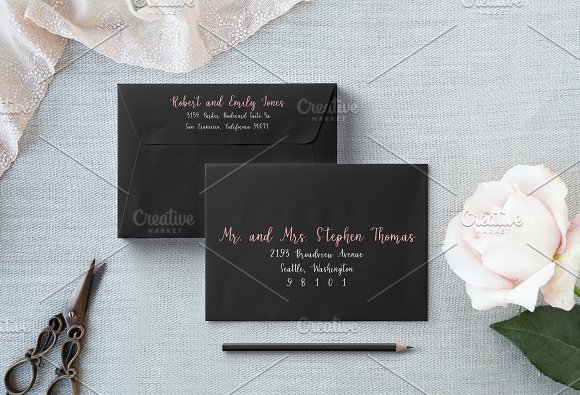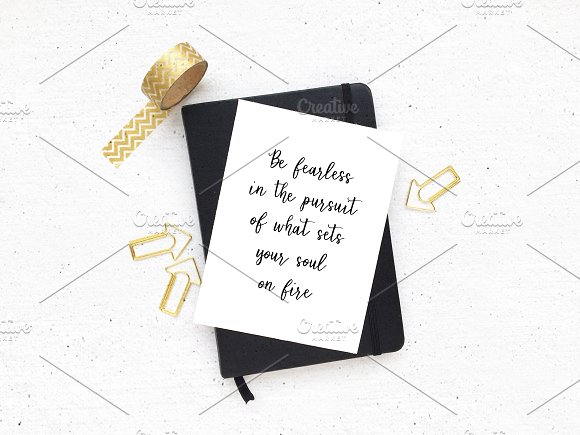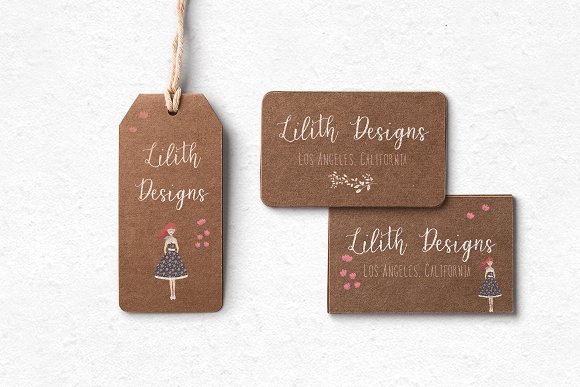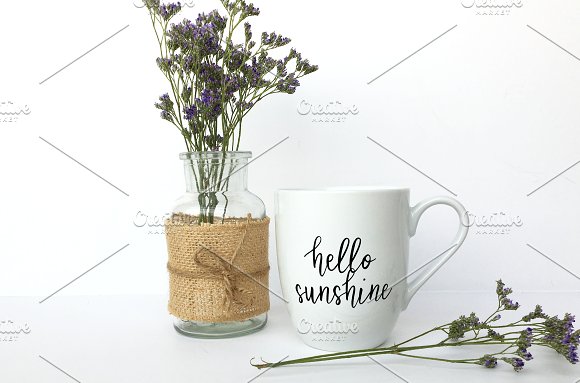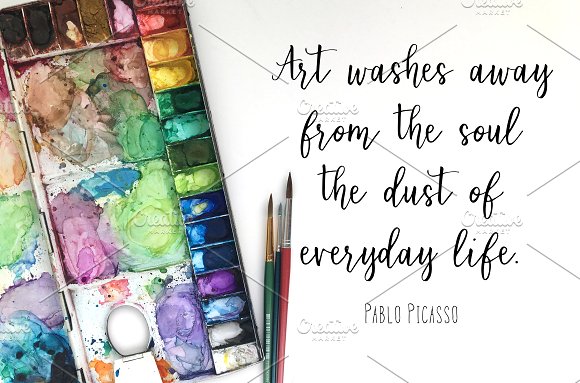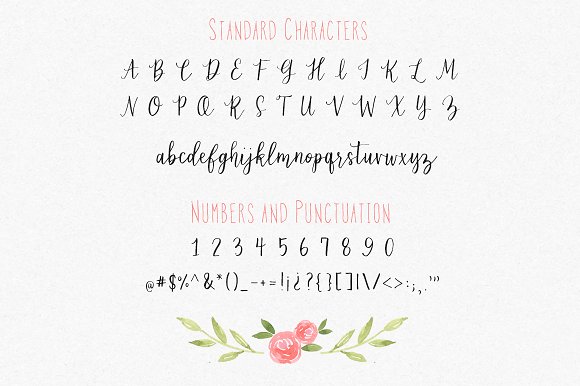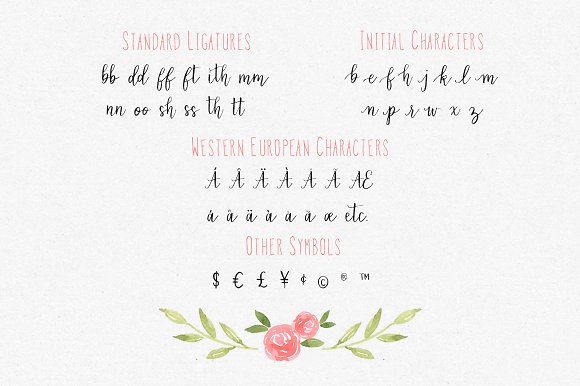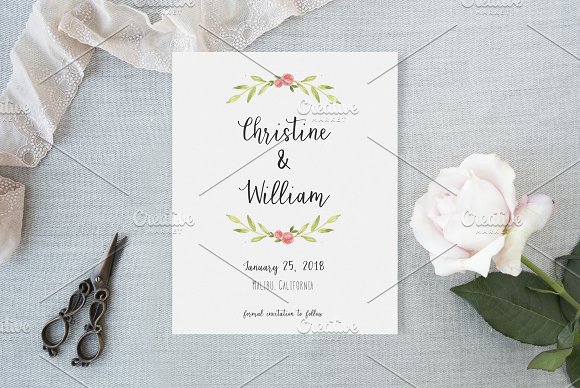
Fiorella Font
Fiorella is a hand-lettered modern calligraphy script font. This font is easy to read and perfect for all of your designs, wedding invites, cards, quotes, branding, social media, and more!
What’s included This font includes Standard Lower and Upper case Characters, Numbers, Punctuation, Symbols, Standard Ligatures, and Initial Characters. This font also offers multilingual support for Western European characters.